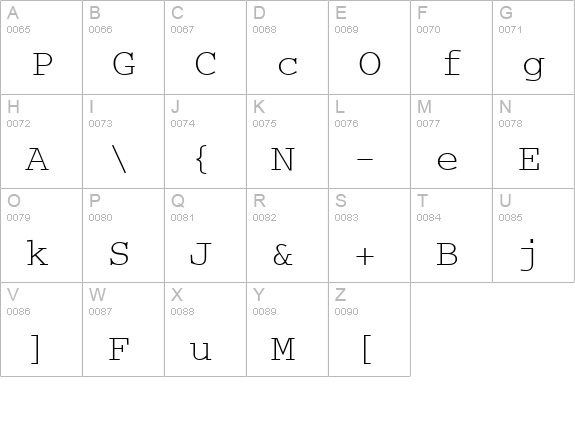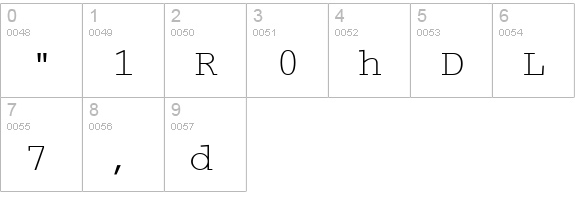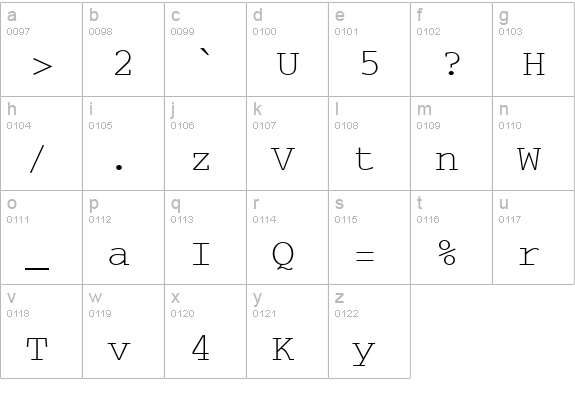
SecretCode Medium Font Details
SecretCode Medium is a balanced, medium-weight variant in the SecretCode typeface family \xE2\x80\x94 well suited to sub-headlines, navigation, and balanced editorial work.
Introducing SecretCode Medium, a powerful and versatile font that will take your designs to the next level. With its bold lines and elegant curves, this font exudes confidence and sophistication. SecretCode Medium is perfect for a wide range of design projects, from logos and branding to editorial layouts and website designs. Its clean and modern look ensures that it can be easily read and recognized, making it ideal for both print and digital applications. But what sets SecretCode Medium apart is that it is not only visually stunning, but also freely available to download at FontsMarket.com. Yes, you read that right! You can now get your hands on this incredible font without spending a penny. Whether you are a professional designer or just starting out, SecretCode Medium offers endless possibilities for your creative endeavors. Its extensive character set includes uppercase and lowercase letters, numbers, punctuation marks, and special symbols, allowing you to create unique and eye-catching designs with ease. So why wait? Unlock the power of SecretCode Medium today and elevate your designs to new heights. Download it for free at FontsMarket.com and let your creativity soar.